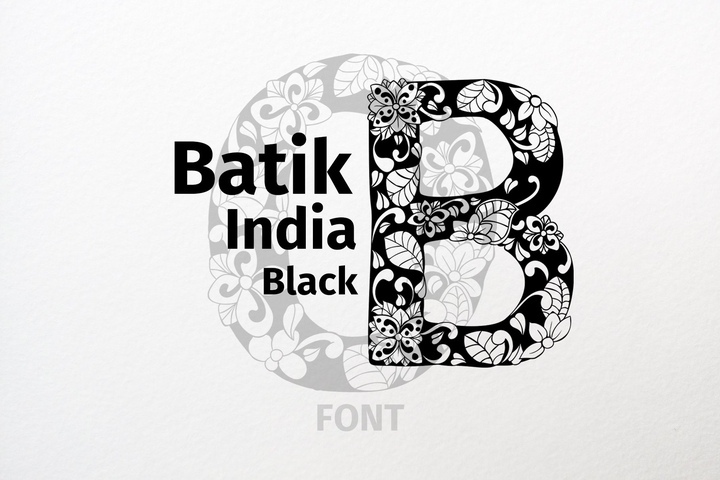
Batik India Black Font
Batik India Black Font is perfectly suited for cultural heritage branding, Indian restaurant signage, traditional craft marketing, ethnic fashion labels, spiritual wellness materials, festival event promotions, authentic cuisine packaging, cultural art exhibitions, and traditional textile company logos.
What makes Batik India Black Font so exciting is its rich cultural authenticity and artistic depth that beautifully captures the intricate beauty of traditional Indian batik artistry in every ornately designed letterform. This magnificent typeface embodies the spiritual and artistic traditions of India with its detailed patterns and flowing curves that evoke the hand-crafted elegance of ancient textile arts. The font's distinctive character shapes and traditional proportions create an atmosphere of cultural reverence and artistic sophistication that resonates with audiences who appreciate authentic cultural expression and traditional craftsmanship. Batik India Black Font stands out through its ability to convey cultural heritage, spiritual depth, and artistic authenticity, making it perfect for projects that need to establish genuine cultural credibility while celebrating the timeless beauty of Indian artistic traditions and spiritual wisdom.
The Batik India Black Font family includes Regular, Medium, and Bold weights, each preserving the font's distinctive cultural character while providing design flexibility for various traditional applications. The family also features decorative elements, traditional ornaments, and cultural symbols that enhance the font's authentic Indian aesthetic and provide comprehensive solutions for culturally-inspired design projects.
When you choose Batik India Black Font Free Download, you're selecting a typeface that brings genuine cultural authenticity and traditional artistry to your creative projects. This font excels in creating designs that need to convey heritage, spirituality, and connection to Indian culture. Its intricate batik-inspired appearance makes it particularly effective for cultural organizations, authentic restaurants, and traditional craft businesses that want to honor Indian heritage while appealing to culturally conscious audiences.
The technical mastery of Batik India Black Font includes an extensive character set with uppercase and lowercase letters, numerals, punctuation marks, and traditional Indian symbols that maintain the font's cultural integrity. The font has been carefully crafted to ensure optimal performance across both digital and print applications while preserving the intricate details that give it its distinctive cultural character and authentic artistic appeal.
Whether you're designing cultural heritage materials, creating authentic Indian brand identities, developing traditional craft promotions, or crafting designs that celebrate Indian culture and artistic traditions, Batik India Black Font delivers the perfect combination of cultural authenticity and contemporary functionality that makes your projects culturally resonant and visually compelling for audiences seeking genuine connection to Indian heritage and traditional artistic excellence.